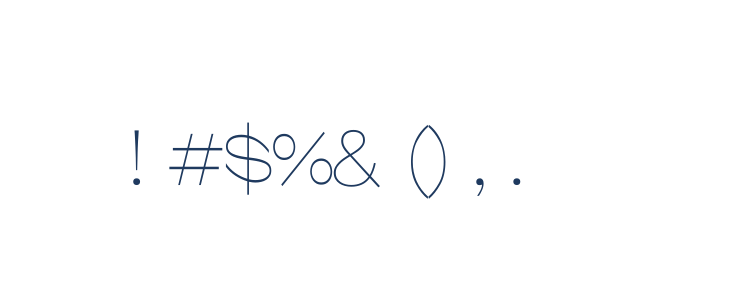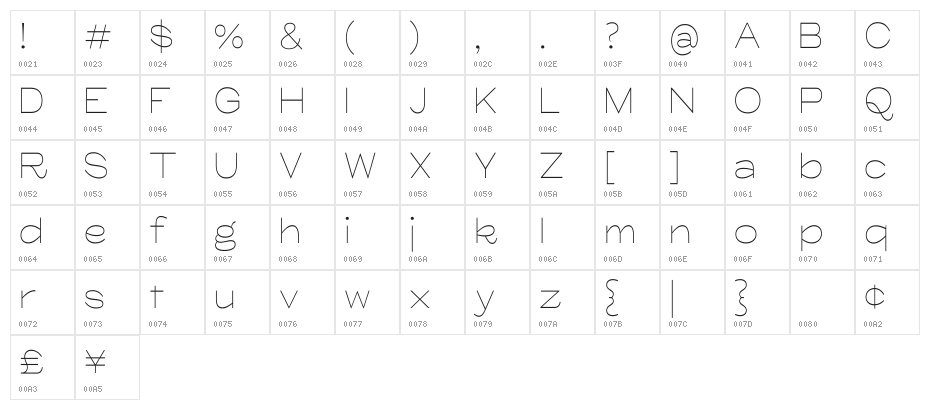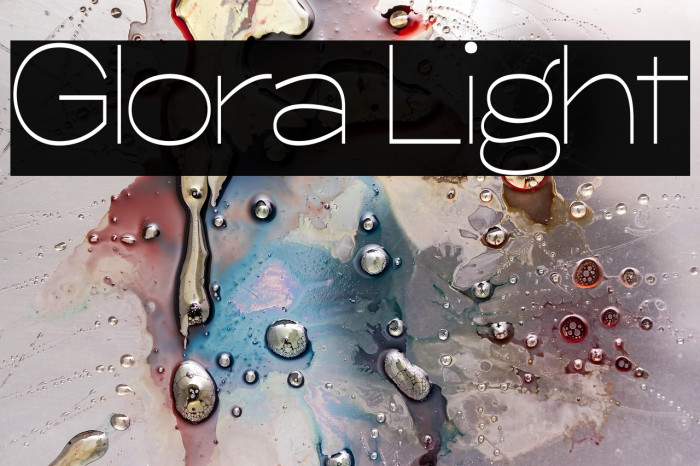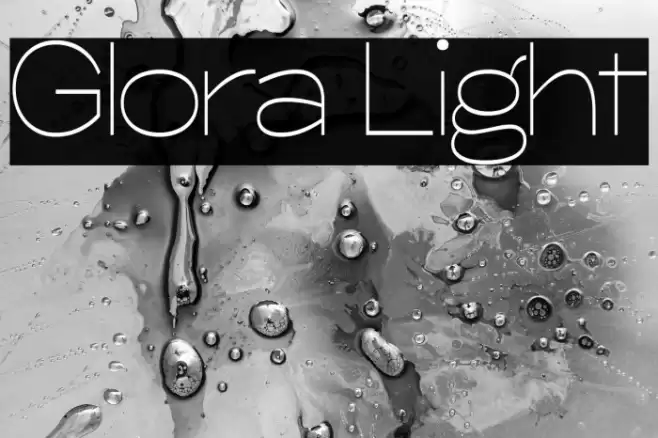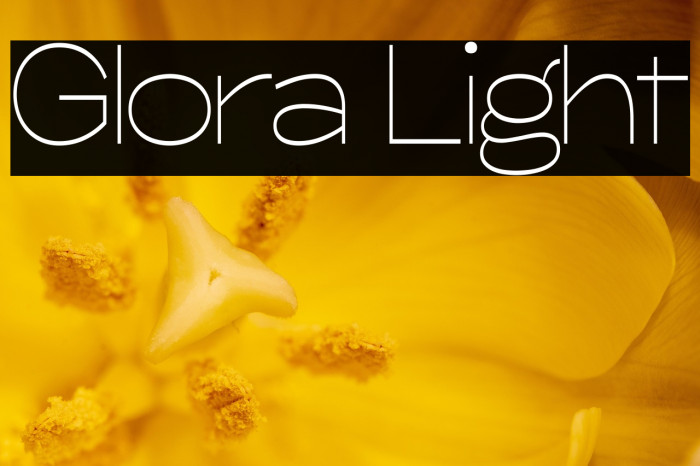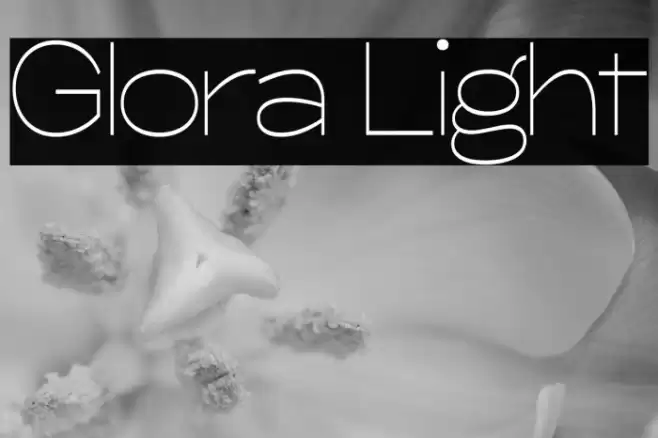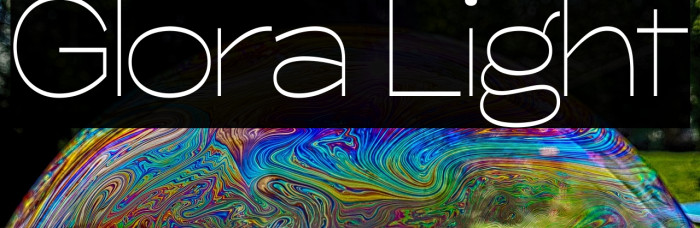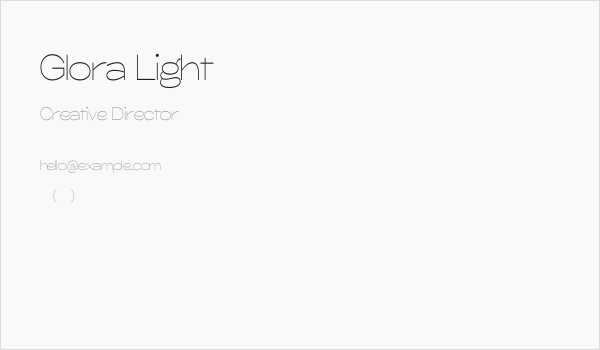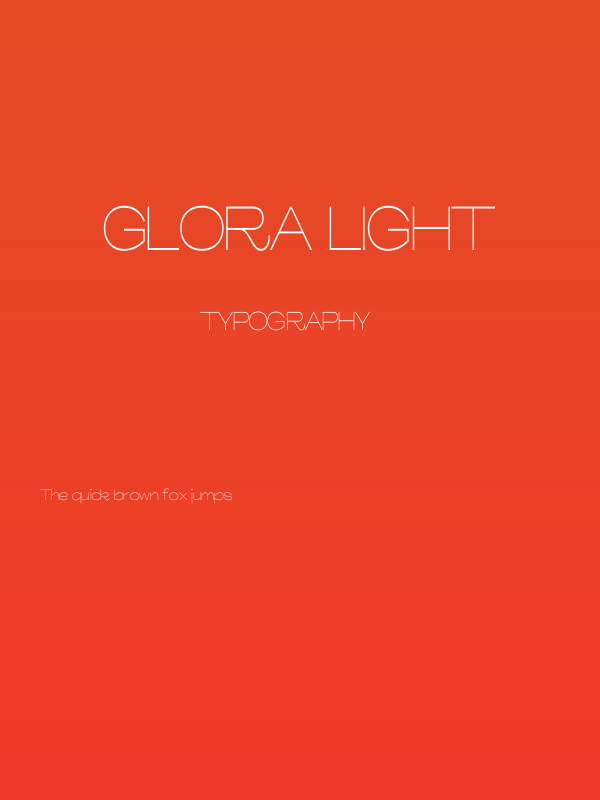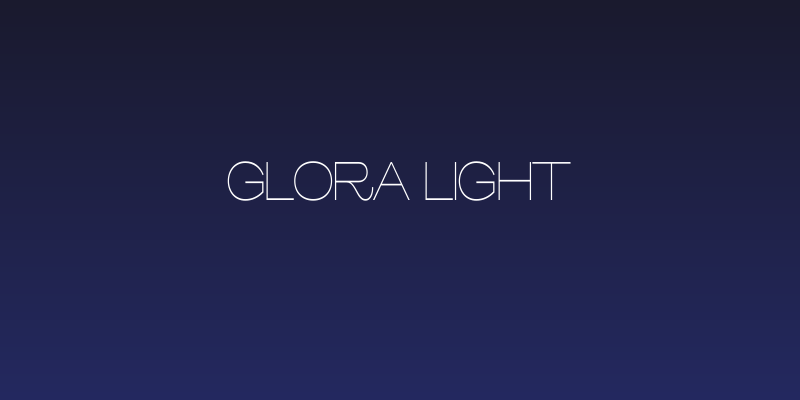
Glora Light Font
Glora Light Description
This font features a sleek and modern design with a light, airy feel. The characters are thin and elongated, providing a sense of elegance and sophistication. The uppercase and lowercase letters maintain a consistent style, with smooth curves and clean lines. The font includes a full set of numerals and a variety of special characters, making it versatile for different design needs. Its minimalist aesthetic is ideal for projects that require a contemporary and refined look.
Use CaseHeadlines, Logos, Branding
Proposed ProjectsIdeal for fashion magazines, luxury branding, modern websites, and minimalist posters.